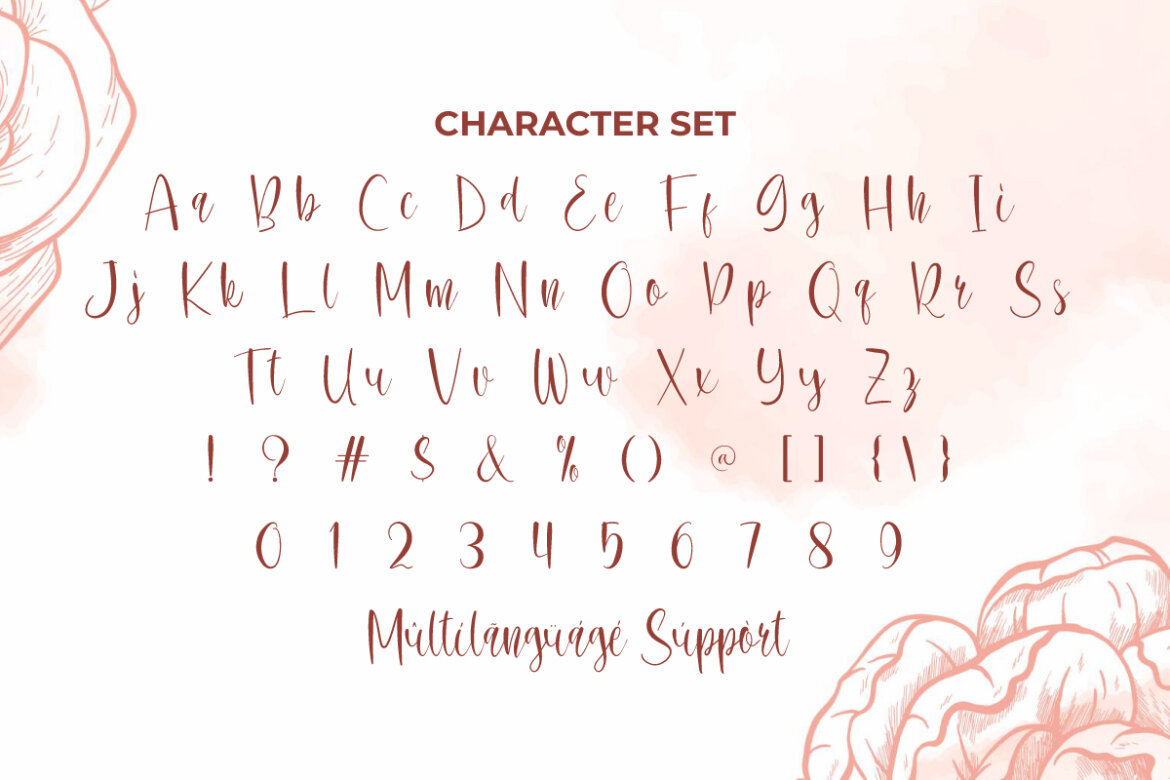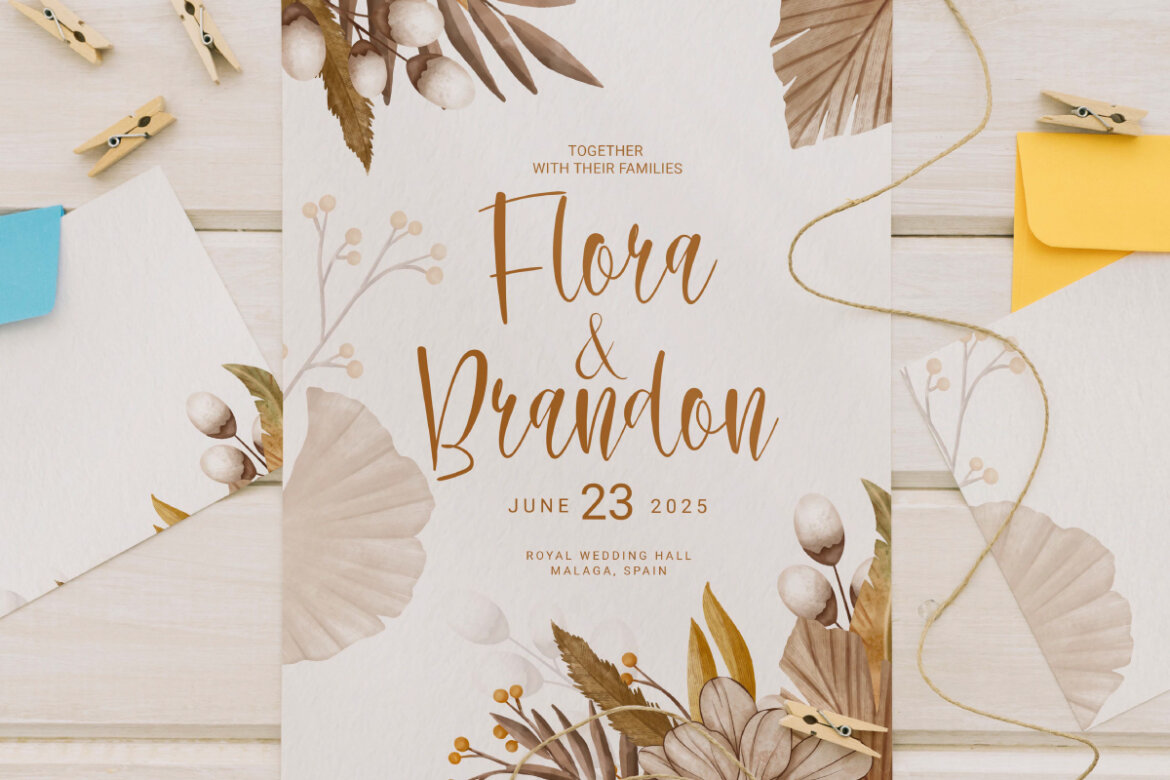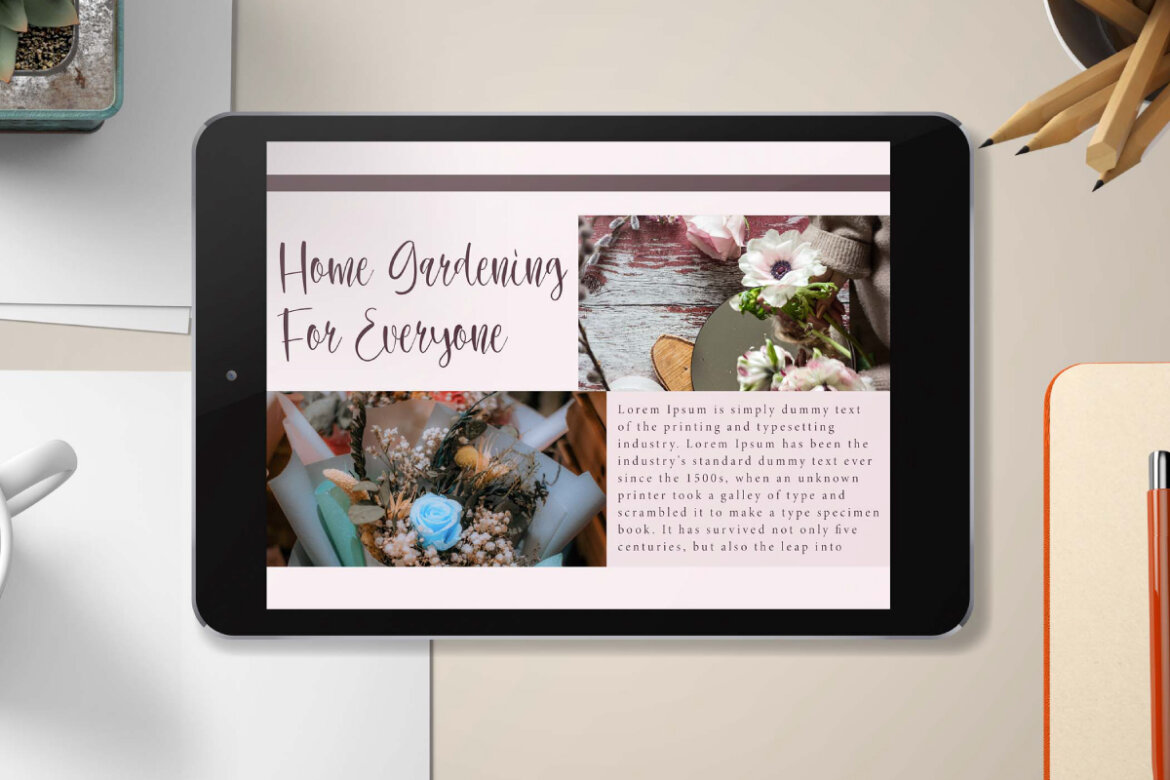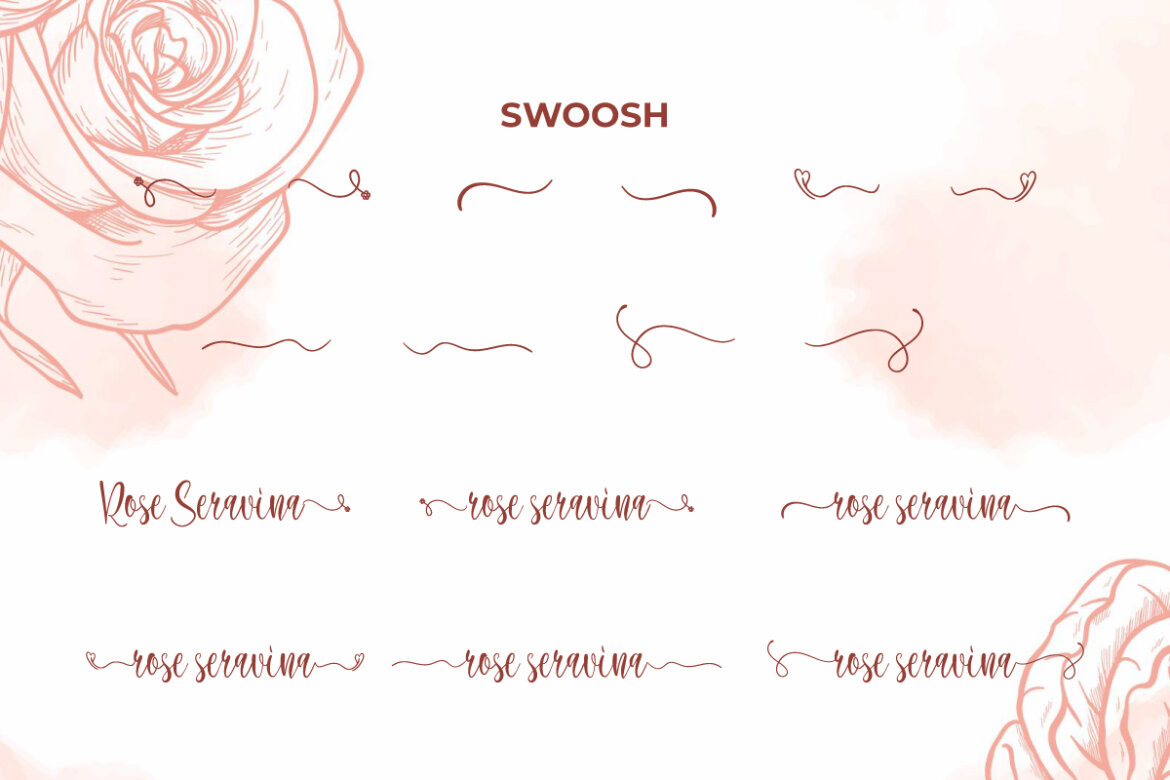
Rose Seravina FREE Font
Rose Seravina
Rose Seravina Font is a stunningly elegant font inspired by the beauty of calligraphy writing and a charming flower petal. It will blow your mind and is perfect for producing sophisticated designs, so it’s suitable for anything such as calligraphy quotes, card designs, headers, labels, logos and branding, social media posts, stationery, template design, websites, wedding invitation, title, and more!
Rose Seravina Font is a light type of calligraphy created in a modern style. This font includes a complete set of uppercase and lowercase letters, numbers, punctuation symbols, ligatures and also beginning and ending swoosh to add high artistic value to this font. It’s perfect for apparel, film, florist, skincare, wedding, writer, but you can use this font for various other projects as well.